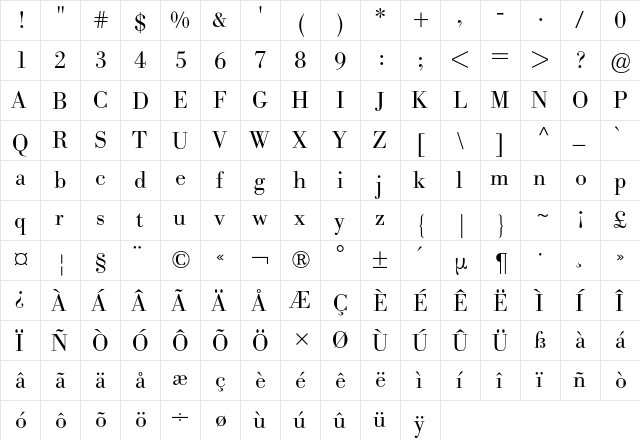
Bodoni Berthold BQ Regular
Design Context for Bodoni Berthold BQ Typeface
Bodoni Berthold BQ offers clean, dependable letterforms without strong stylistic allegiance, making it a practical choice for designers who need flexibility.